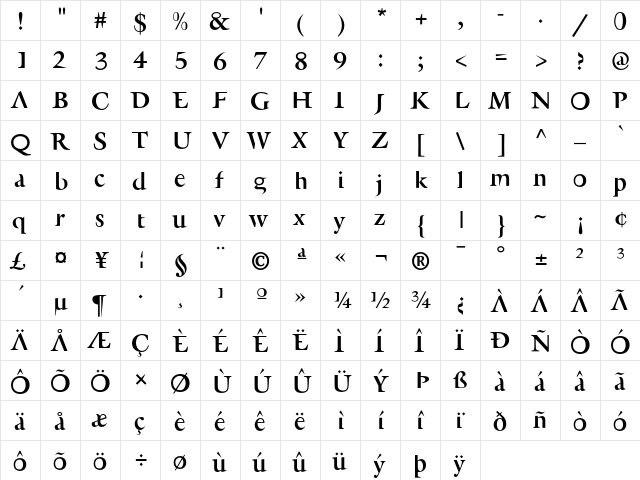
AFRetrospecta Bold
Design Context for AFRetrospecta Typeface
AFRetrospecta wears its vintage influences proudly, with letterforms that recall mid-century signage, classic packaging, and nostalgia-driven design. The heavy weight commands attention and anchors typographic hierarchies.
Font Pairing: Combine AFRetrospecta with a simple slab or neutral sans — period-accurate companions reinforce the vintage feel without competing for attention.
Pro Tip: Use AFRetrospecta for headlines and pull quotes rather than body copy — its personality is best appreciated in short, focused bursts.